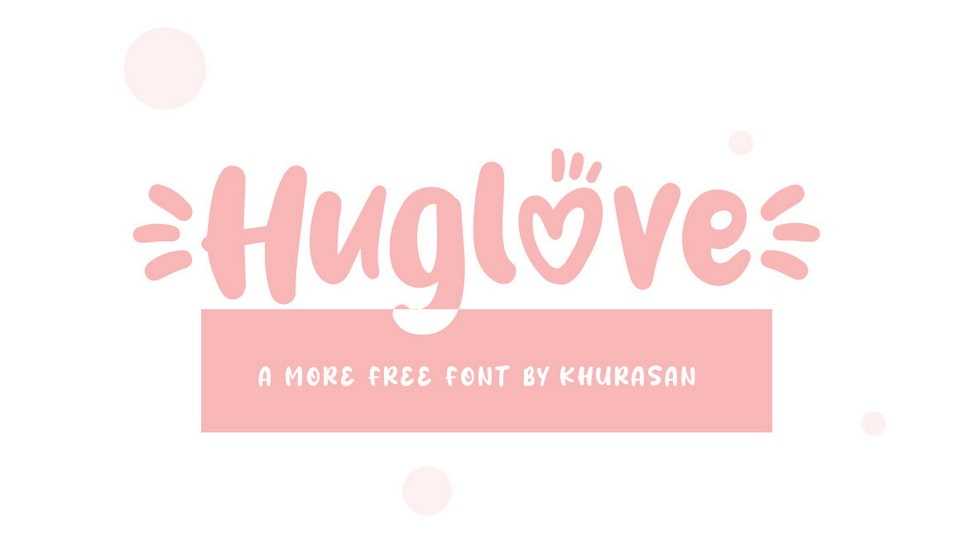
Download Huglove font, a lovely and playful handwritten typeface. Huglove font is perfect for posters, logos, magazines, book covers, banners, and many more.